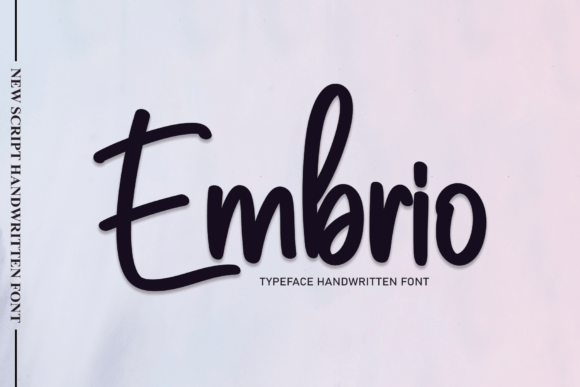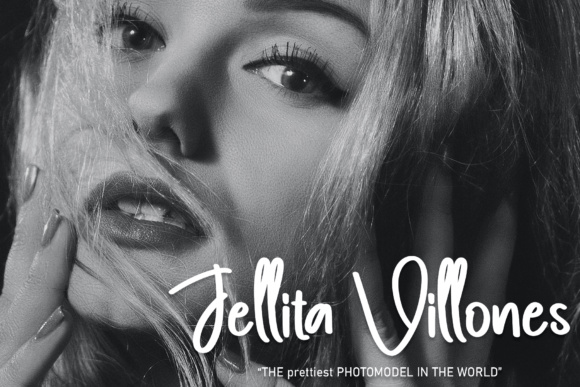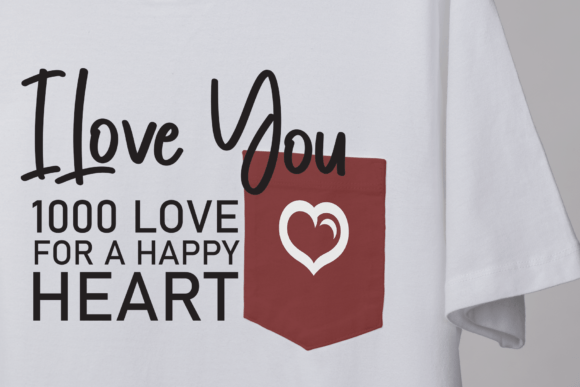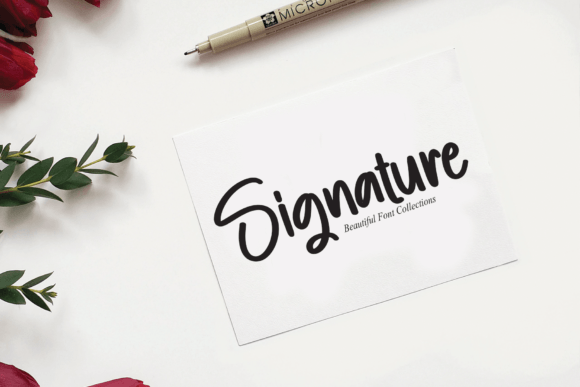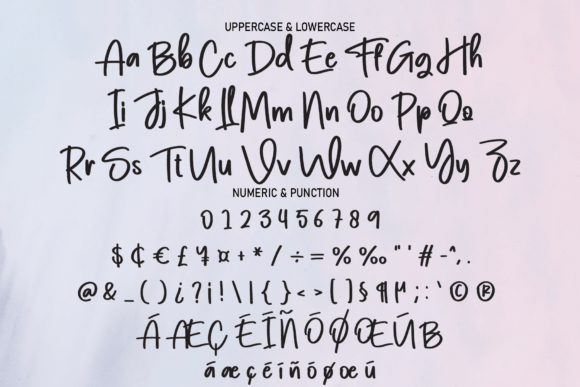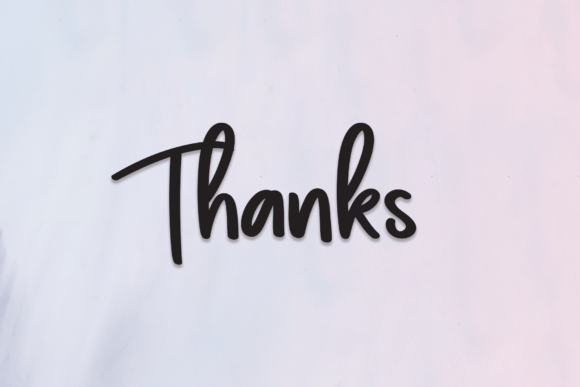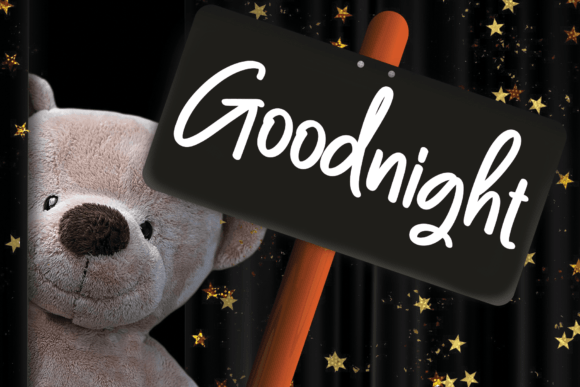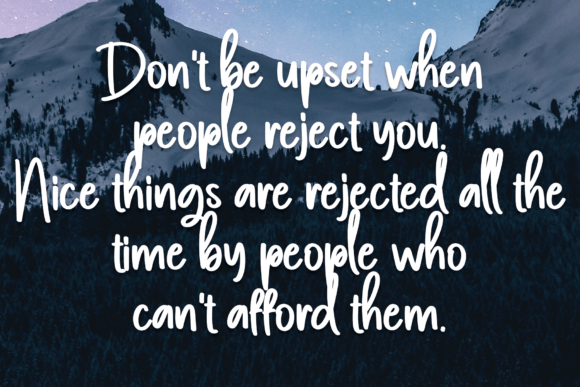
Embrio Font
About Embrio Font
“Embrio” is a charming and quirky handwritten font that radiates an incredibly friendly feel. Whether you’re searching for fonts to enhance your Instagram posts or seeking handwritten scripts for engaging DIY projects, “Embrio” has the power to transform any creative idea into a genuine piece of art.
The charm of “Embrio” lies in its cute and playful design. The letters exude a whimsical quality, giving your text a delightful and approachable appearance. This makes the font well-suited for a variety of applications, from social media graphics to personalized craft projects.
For Instagram enthusiasts, “Embrio” becomes a valuable asset for creating eye-catching posts. Its handwritten charm adds a personal touch to your captions, quotes, and messages, making your content stand out in the crowded social media landscape. The friendly feel of the font establishes a connection with your audience, inviting them to engage with your posts.
When it comes to DIY projects, “Embrio” becomes a creative companion. Whether you’re designing handmade cards, crafting labels, or adding a personal touch to your home decor, this font injects a sense of fun and originality into your creations. Its quirky style adds character, making each project a true reflection of your creative spirit.
The versatility of “Embrio” shines through in its ability to adapt to different design contexts. Whether you’re working on digital or print projects, this font seamlessly integrates with your creative vision. Its cuteness and quirkiness make it a go-to choice for projects that demand a touch of playfulness and uniqueness.
In essence, “Embrio” is more than just a font; it’s a creative tool that enhances your projects with charm and friendliness. Its cute and quirky nature makes it a delightful addition to your font collection, providing endless possibilities for expressing creativity in a fun and approachable manner. Whether you’re a social media enthusiast, a DIY enthusiast, or a designer looking for a touch of whimsy, “Embrio” is ready to bring your creative ideas to life.